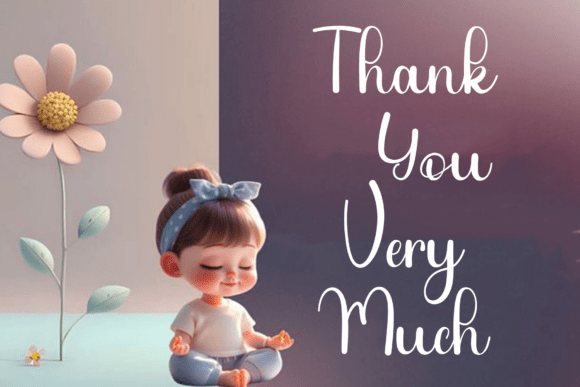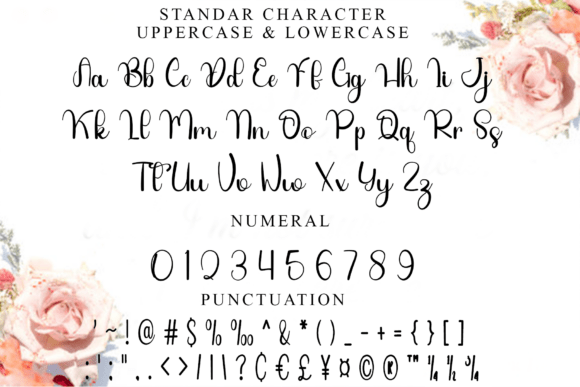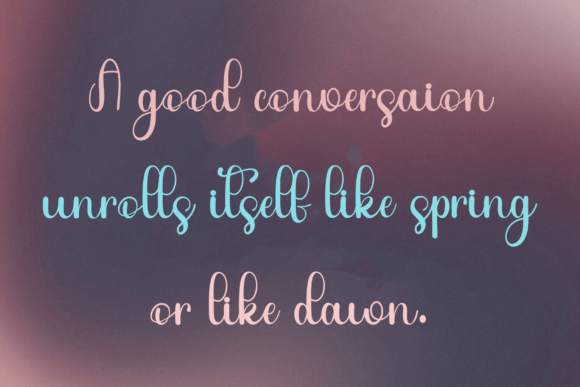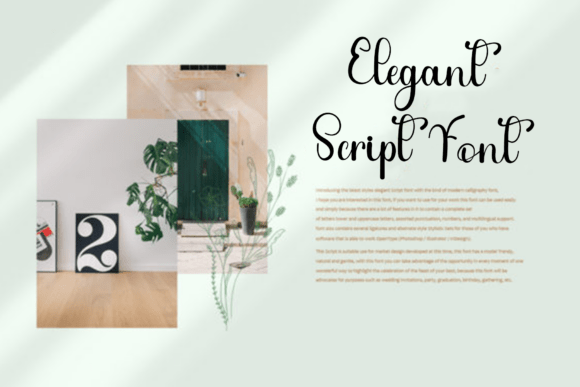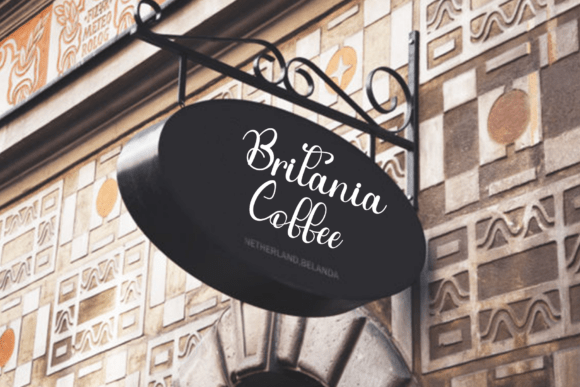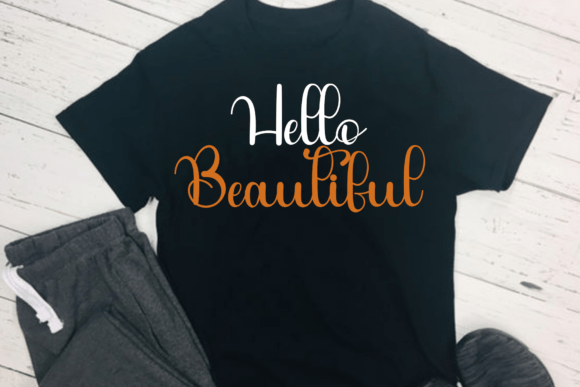
Introduction to Outside Easter Font
Do you remember the excitement of discovering a new design resource that instantly elevates your creative project? For many designers, this feeling is a mix of joy and relief, knowing that they’ve found a valuable tool to bring their vision to life. Today, we’re excited to introduce you to the Outside Easter Font, a charming and versatile typeface that’s sure to become a favorite in your design arsenal.
The Outside Easter Font is more than just a pretty face – it’s a high-quality design element that’s perfect for adding a personal touch to your work. With its round, playful strokes and transparent background, this font is ideal for creating eye-catching graphics, invitations, and social media posts. And the best part? It’s available for free download, making it an accessible resource for designers of all levels.
Whether you’re working on a personal project or a commercial design, the Outside Easter Font is sure to add a unique and creative touch. So why not give it a try and see how it can elevate your next design project?
Key Features of Outside Easter Font
- Unique Easter-themed design, ideal for creative projects and holiday-themed artwork.
- High-quality font, available for free download, making it a valuable design resource.
- Transparent background, allowing for easy customization and integration into various designs.
- Features a large character set, including uppercase and lowercase letters, numbers, and special characters.
- Designed with a resolution of 300 DPI, ensuring crisp and clear text in various sizes.
- Perfect for use in graphic design, digital art, and other creative projects, adding a festive touch to any design.
Honest Review: Outside Easter Font
I recently stumbled upon the Outside Easter Font, and I’m excited to share my thoughts on this design resource. At first glance, I was drawn to its unique and playful style, perfect for creative projects that require a touch of whimsy.
Here are some things that work well about the Outside Easter Font:
- ✨ Unique and quirky design that sets it apart from more traditional fonts
- ✨ High quality, crisp and clear, making it suitable for a variety of applications
- ✨ Transparent background, allowing for easy layering and customization
- ⚠️ Limited character set, which may not be suitable for longer text-based projects
- ⚠️ Not all glyphs are available in both uppercase and lowercase, which may cause issues with consistency
Overall, I’m impressed with the Outside Easter Font’s potential, especially for creative projects that require a bold and eye-catching design. While it may have some limitations, it’s definitely worth considering as a free download for designers looking to add some personality to their work.
The Outside Easter Font is perfect for creating Easter-themed designs, such as invitations, greeting cards, and social media posts. You can also use the font to create a custom logo or branding for your business.
To get the most out of the Outside Easter Font, use it in combination with other high-quality design elements, such as illustrations and graphics. You can also use the font to create a custom design with a transparent background, which can be used as a overlay or background for your project.